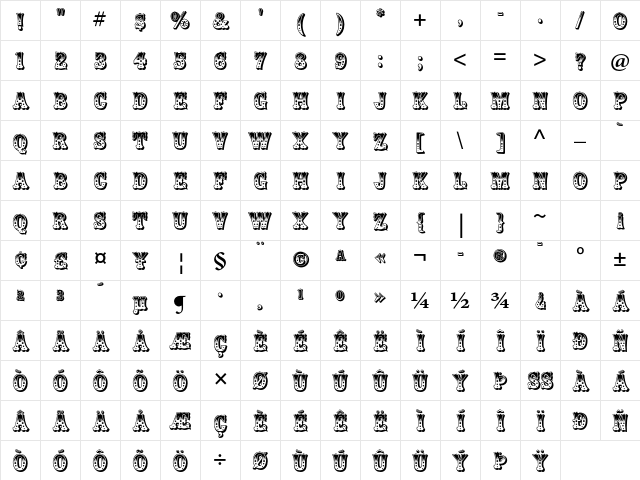
Zebrawood Std Regular
Designer: Kim Buker Chansler, Carl Crossgrove, Carol Twombly
Design Context for Zebrawood Std
Zebrawood Std echoes the hand-painted signage and woodblock typography of the American frontier, with a warm, rugged personality.
Font Pairing: Combine Zebrawood Std with a simple slab or neutral sans - period-accurate companions reinforce the vintage feel without competing for attention.
Pro Tip: Use Zebrawood Std for short, impactful bursts of text - it shines in poster headlines and product names rather than extended copy.